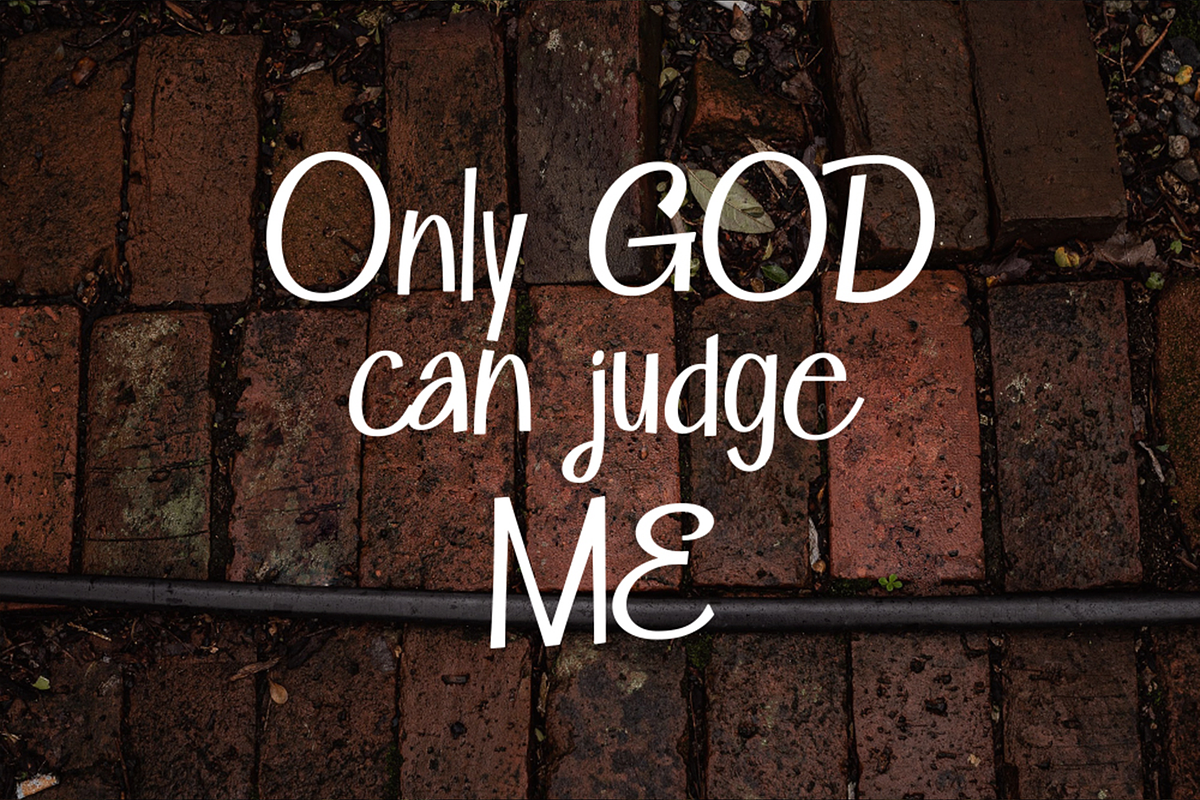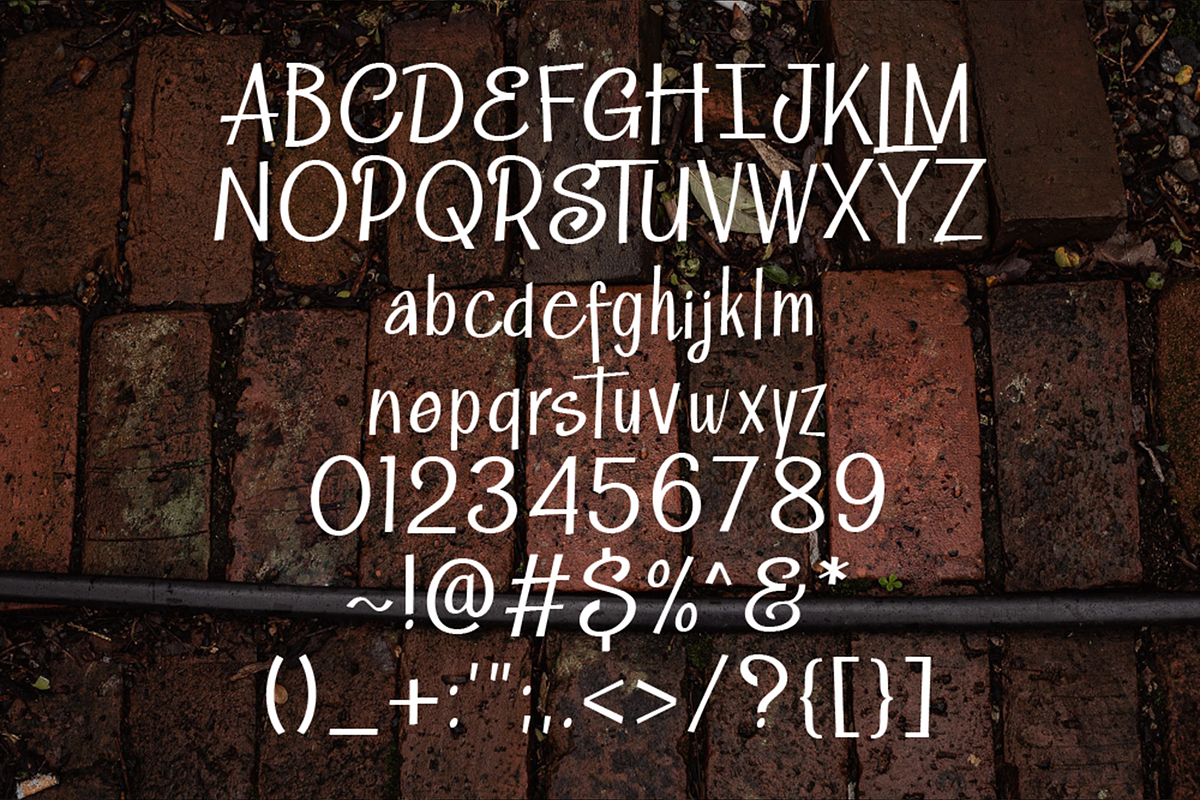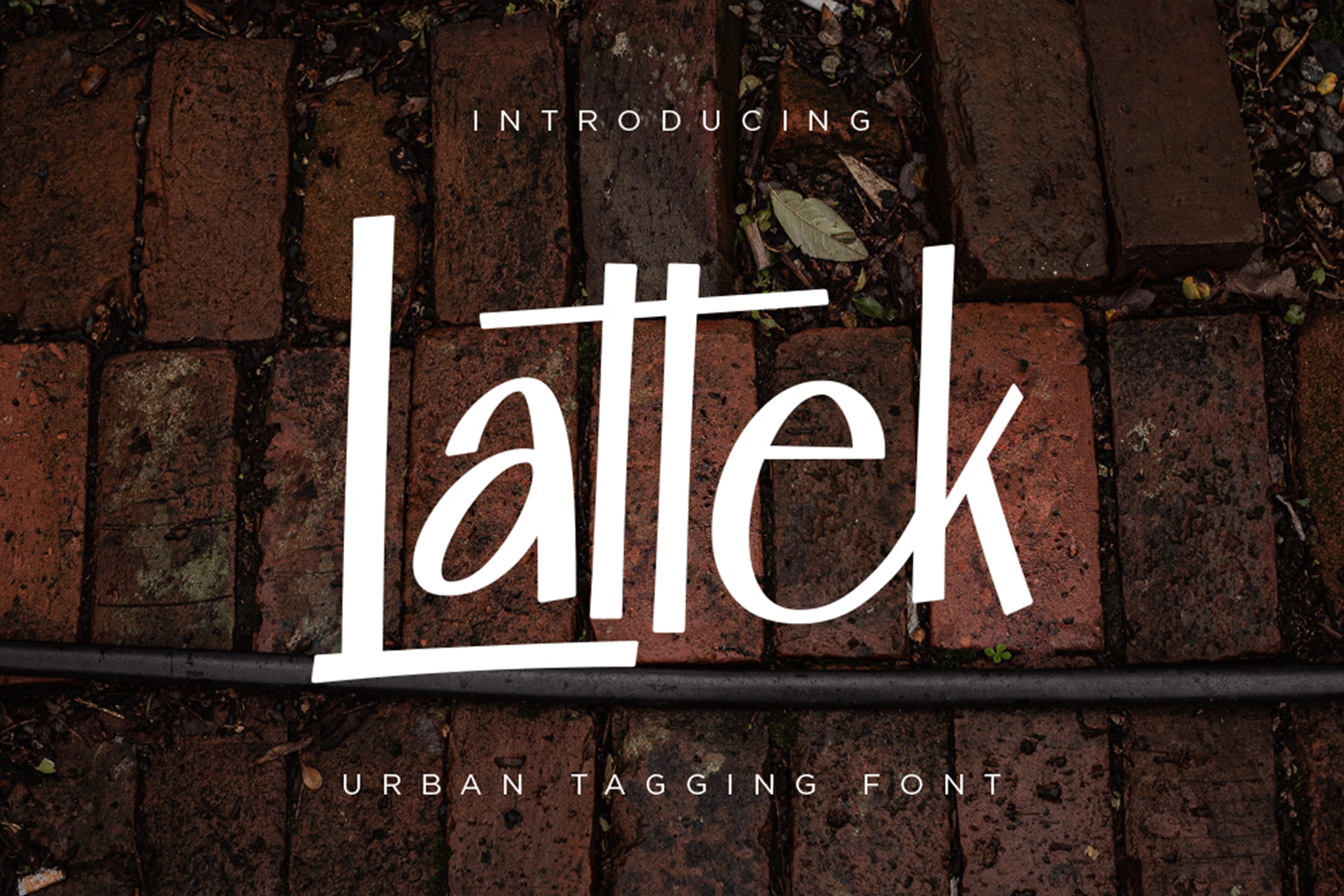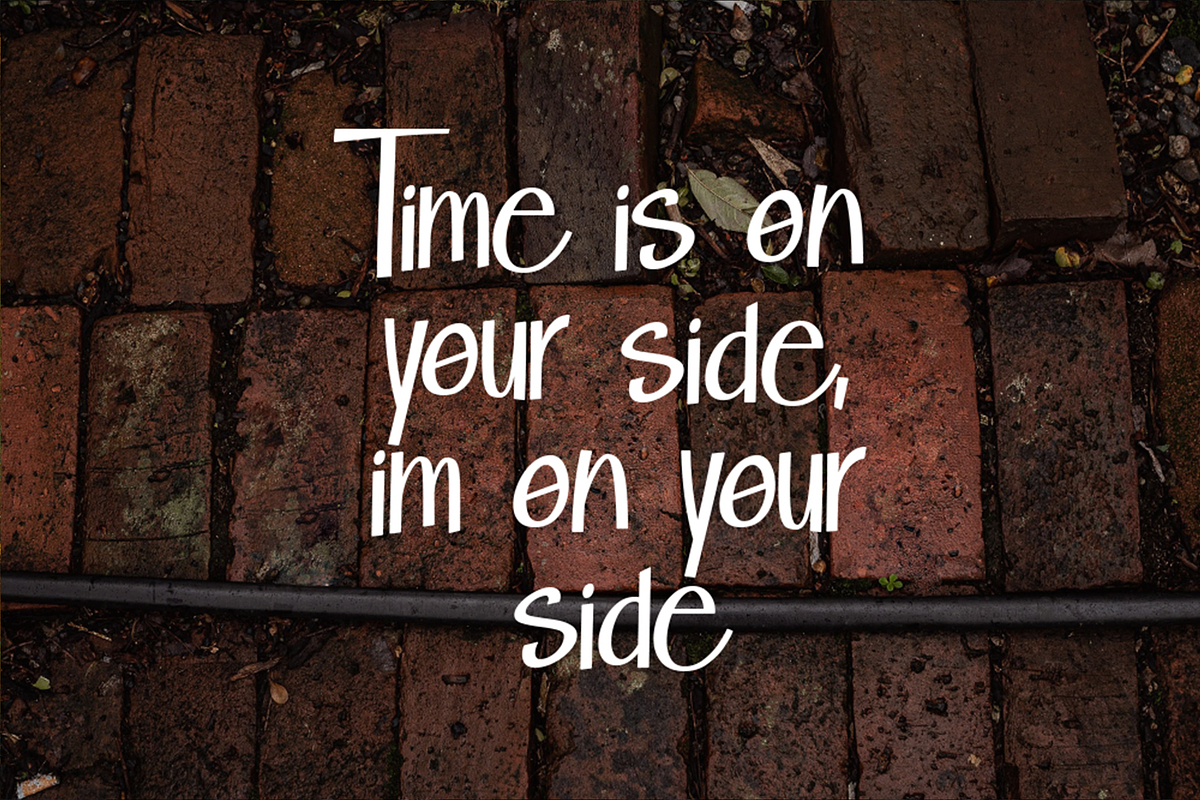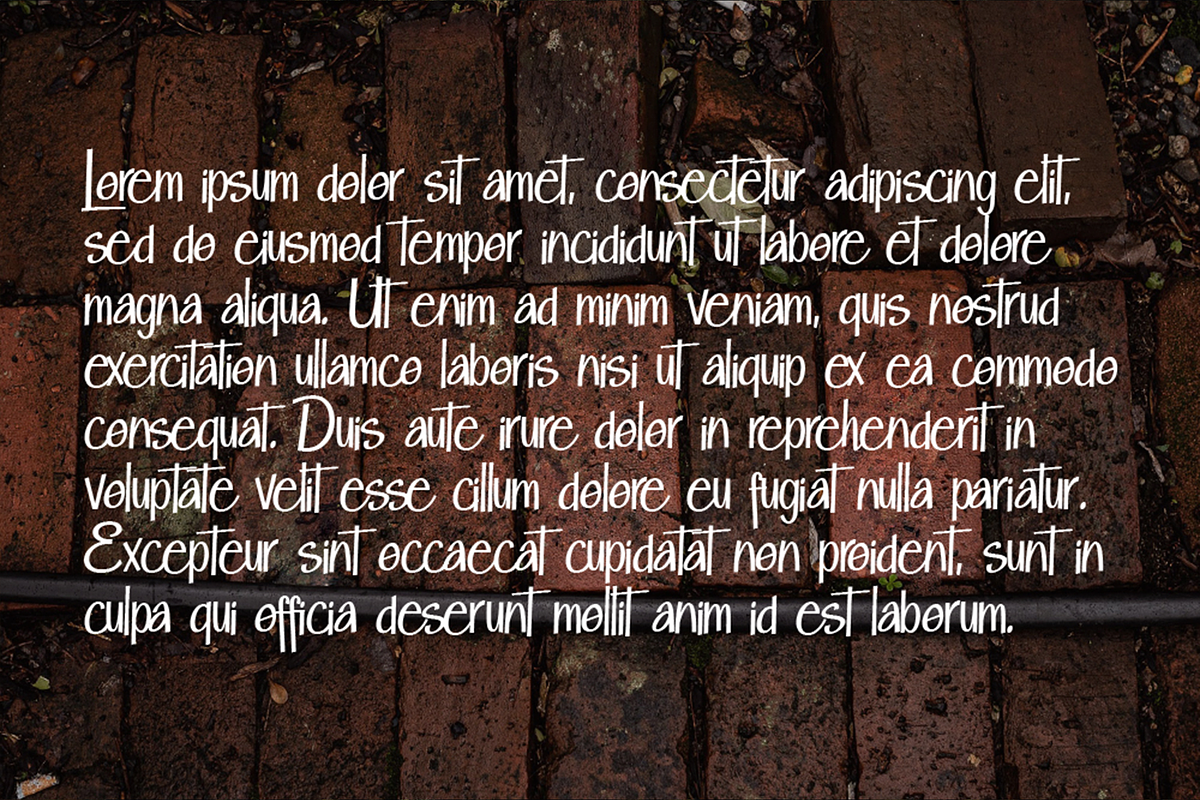
Lattek – Urban Tagging Fonts
Get down to the street and urban culture vibes with our Lattek font. Inspired by the expressive fashion and urban culture of streetwear nowadays. Perfectly fit for a clothing company, music industry, logo, branding, etc.